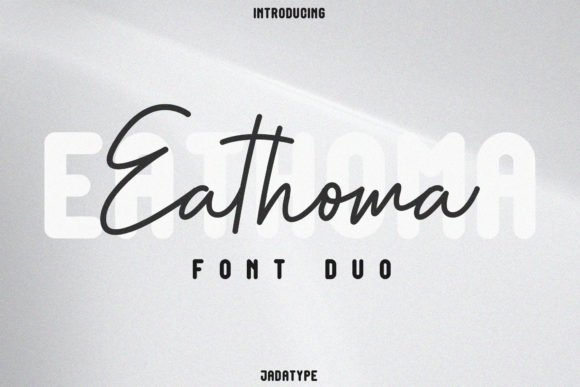
Eathoma: A Sweet and Delicate Font for Romantic Designs
If you're looking for a font that adds a personal, romantic touch to your creative projects, Eathoma might just be the perfect choice. This elegant duo font combines the clean lines of a sans serif with the soft charm of a handwritten style, making it ideal for a variety of design needs. Whether you're crafting wedding invitations or designing custom cards, Eathoma brings a sense of warmth and personality to any project.
What Is Eathoma?
Eathoma is a unique font that blends two distinct styles into one cohesive look. The sans serif component offers readability and modernity, while the handwritten aspect adds a personal, artisanal feel. Together, they create a dainty and joyful appearance that's both inviting and stylish. It’s designed to evoke feelings of love, celebration, and individuality, which makes it especially popular among designers working on sentimental projects.
Real-World Uses for Eathoma
The versatility of Eathoma means it can be used in many different scenarios. Here are some practical examples of where this font shines:
Who Can Benefit from Using Eathoma?
Eathoma appeals to a wide range of users, each with their own specific needs and goals:
Things to Consider Before Using Eathoma
While Eathoma is a beautiful font, there are a few things to keep in mind before using it in your designs:
Why Choose Eathoma Over Other Fonts?
Compared to other fonts, Eathoma stands out because of its unique blend of styles. While many fonts lean heavily toward either a modern or traditional look, Eathoma manages to combine both in a way that feels fresh and approachable. Its ability to convey emotion through typography makes it a favorite among designers who want to create something truly special.
Additionally, the font’s dainty and joyful nature makes it well-suited for projects that require a sense of intimacy and care. Whether you’re designing for a loved one or your own brand, Eathoma can help you express your message with more depth and feeling.
Getting Started with Eathoma
If you're ready to try Eathoma in your next project, start by experimenting with different layouts and color schemes. Use it sparingly at first to see how it interacts with other design elements. Once you're comfortable with its style, you can incorporate it into more complex designs.